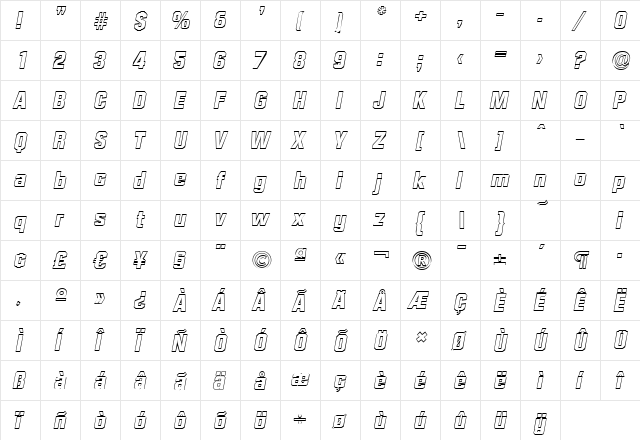
SeanBeckerOutline-ExtraBold Italic Font Preview
Design Context for SeanBeckerOutline-ExtraBold Typeface
SeanBeckerOutline-ExtraBold brings ornamental detail and strong personality to headlines and identities, where visual impact matters more than quiet functionality. Its italic angle brings a sense of urgency and motion to the letterforms. Its bold stroke weight gives it real presence on the page.
Font Pairing: Pair with a clean neutral sans-serif for body copy to let SeanBeckerOutline-ExtraBold's character lead without overwhelming the composition.
Pro Tip: Use SeanBeckerOutline-ExtraBold exclusively at display sizes — it was designed to be seen, not read at length. Let a neutral companion handle body copy.